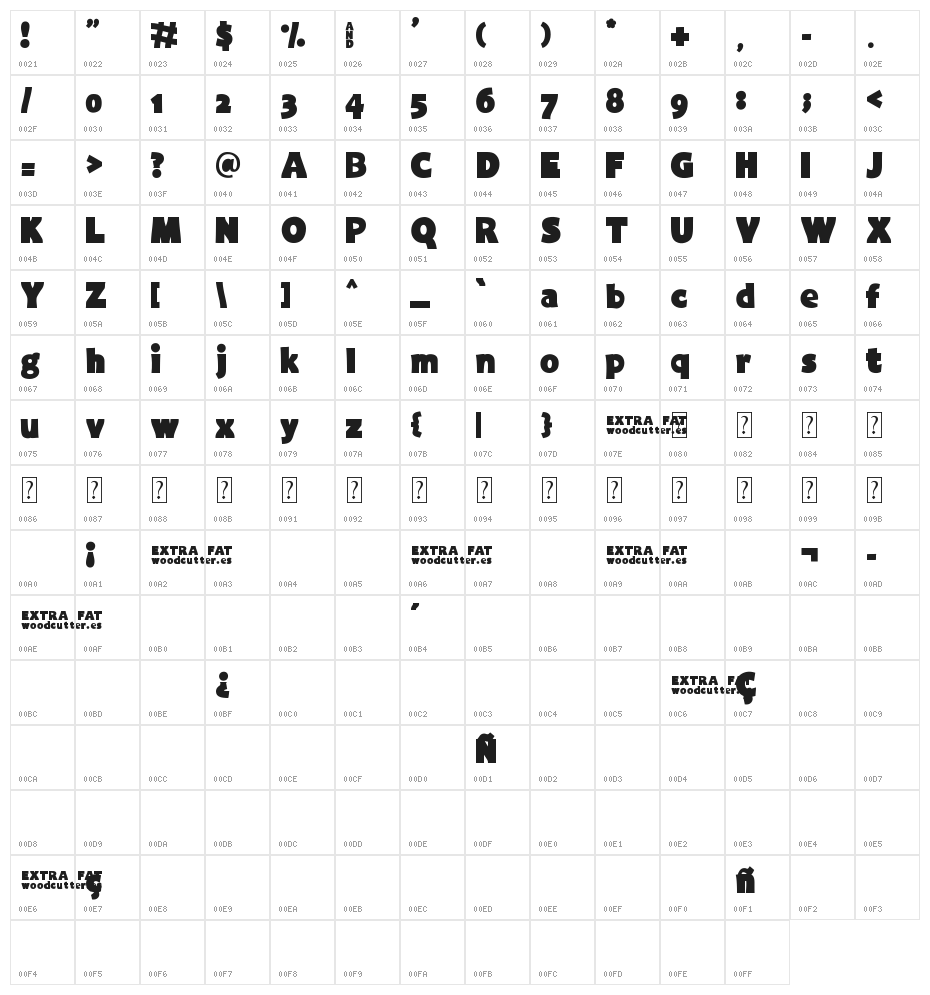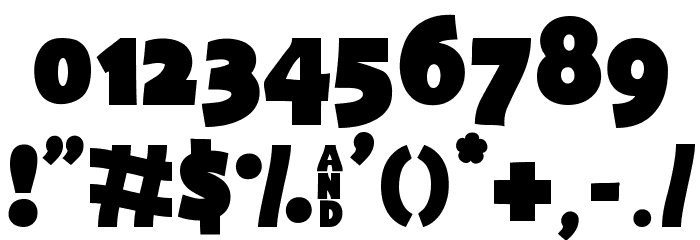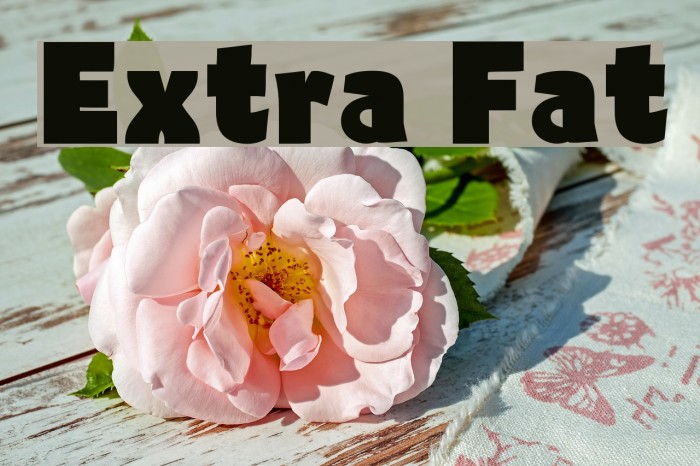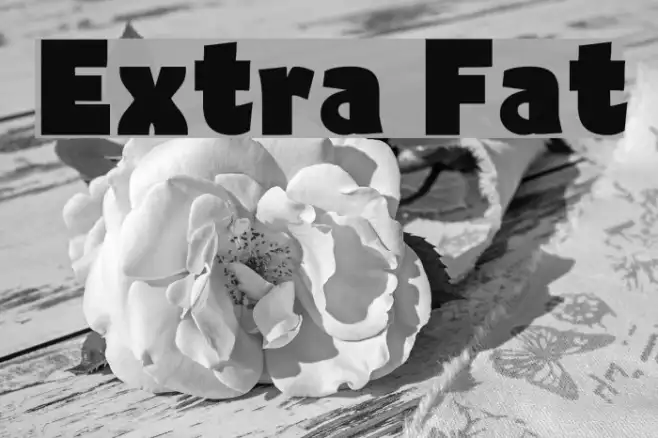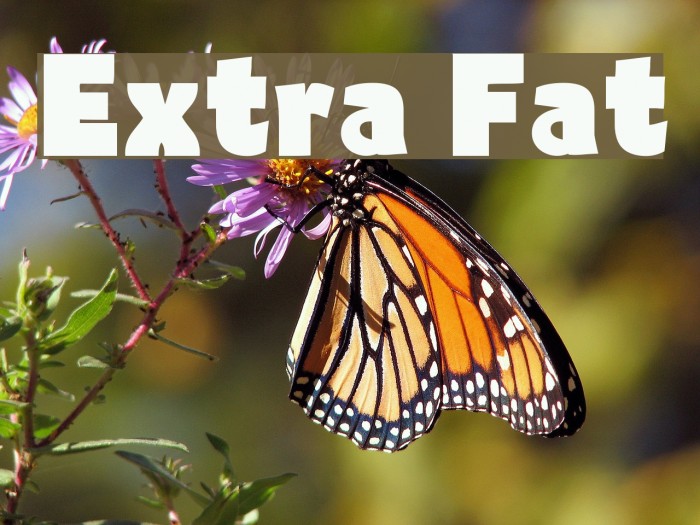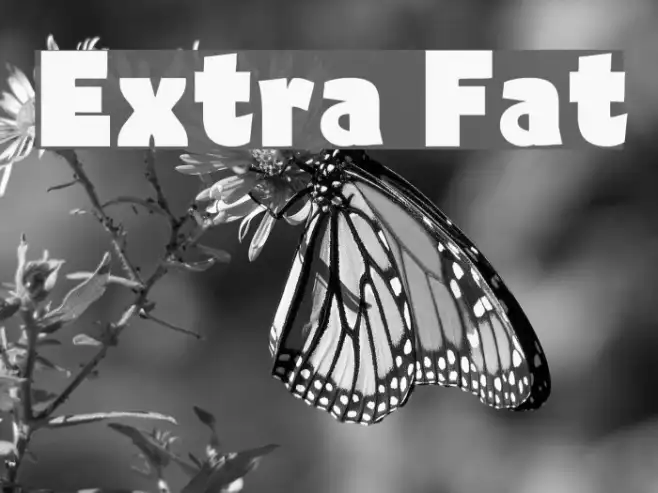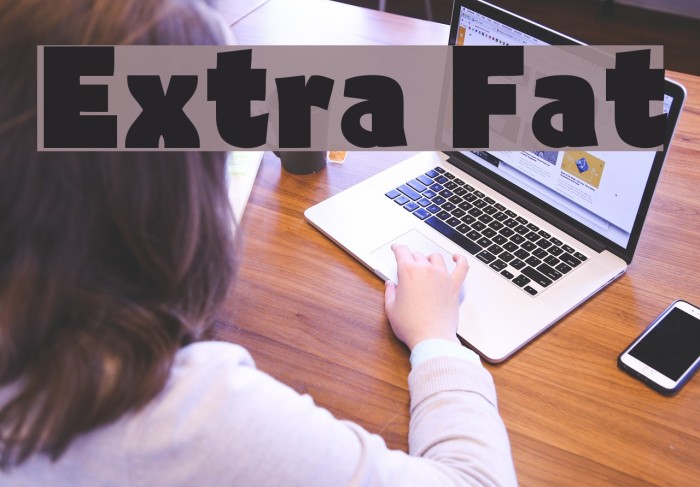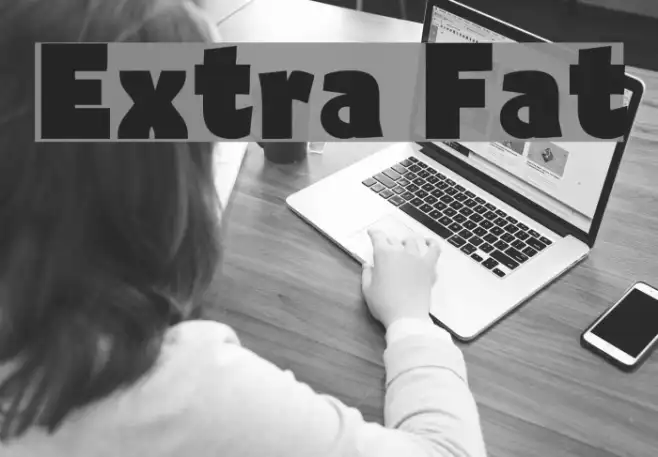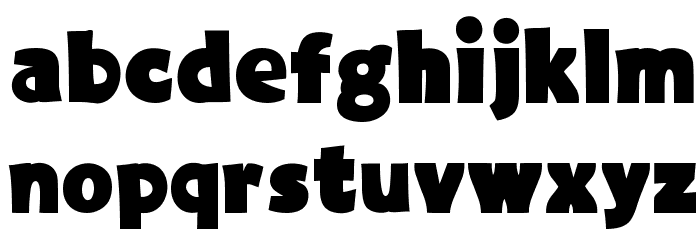
Extra Fat Font
Extra Fat Description
This bold and striking font features thick, heavy strokes that create a powerful visual impact. The characters are uniformly wide, with a playful and slightly rounded appearance that adds a touch of whimsy. The uppercase and lowercase letters maintain a consistent weight, ensuring readability and balance. The numerals and special characters are equally robust, making them stand out in any design. This font is perfect for grabbing attention and conveying a sense of strength and boldness.